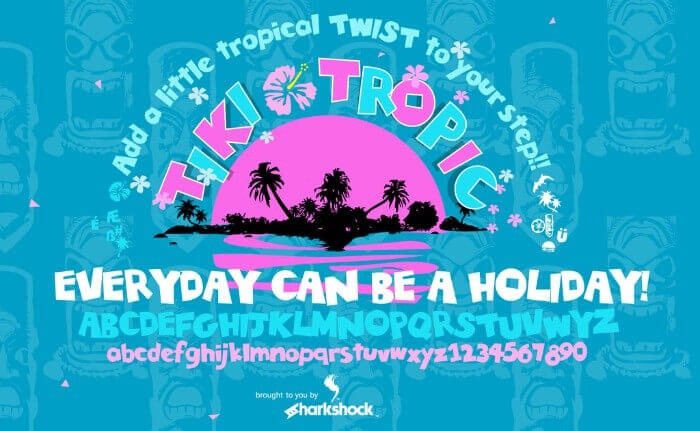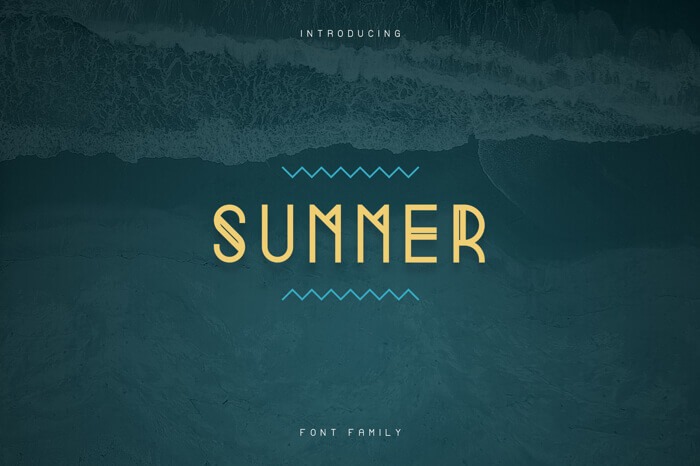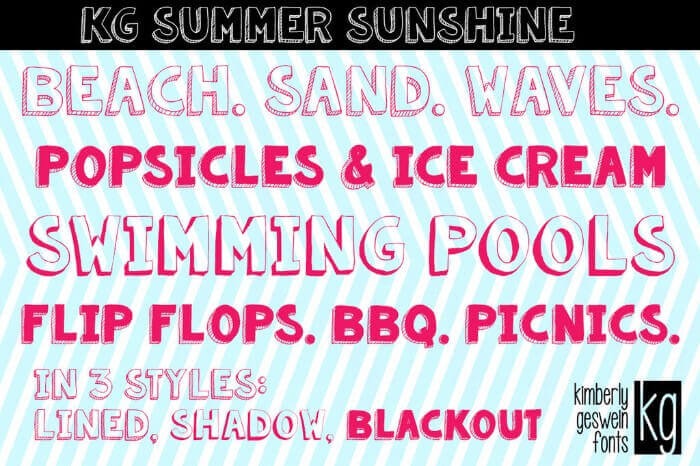
20 Best summer fonts for seasonal designs (free + paid)
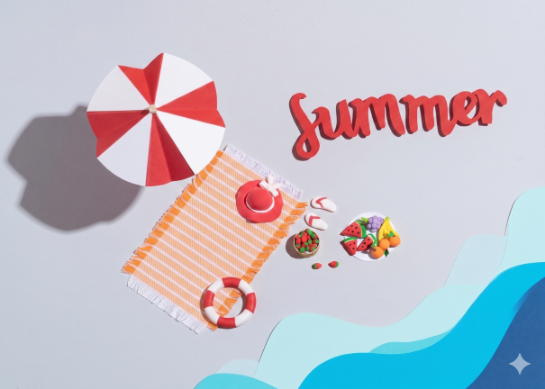
TL;DR
The best summer fonts match your project's tone, not just the season.
✅ Best free commercial picks: Summer Vibes (handwritten, Dafont), Rock Salt (Google Fonts), Camar Vintage (Pixel Buddha).
✅ Best for social and display: Beachday and Reborn (both free).
✅ Best elegant options: Pana Summer and Esencia (both free). Most fonts on this list are free to download, but check commercial license terms before using in paid projects. Personal-use-only fonts are flagged in every entry.
Summer fonts show up everywhere in seasonal design: beach bar signage, sale banners, travel brochures, social media posts from June through August. The right typeface communicates warmth and playfulness before a reader processes a single word. The wrong one just looks like someone dropped a clip art file into Canva.
This list covers 20 free summer fonts across every style category, from loose handwritten scripts to bold display faces. Each entry includes a licensing note and a "Best for" label so you know where it actually works, not just what it looks like on a preview image.
20 best summer fonts for seasonal designs
Handwritten summer fonts
1. Summer Vibes (free)
Best for: Social media posts, seasonal greeting cards, summer sale headers ✅
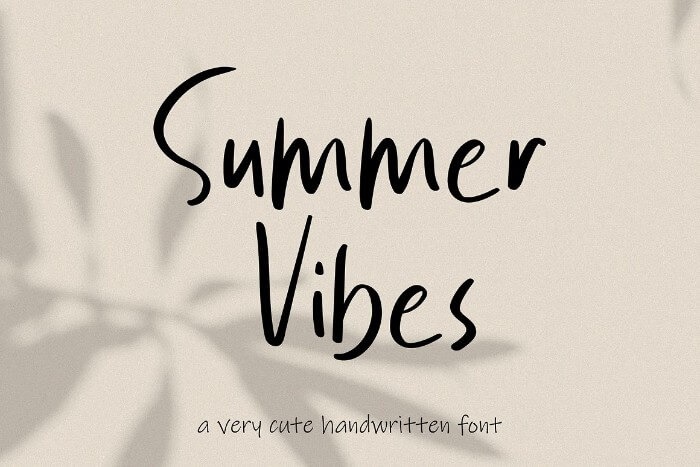
Summer Vibes is one of the few genuinely free-for-commercial-use handwritten summer fonts, which alone makes it worth bookmarking. Its thin lines and gentle strokes give it a flowing, effortless quality without the looseness that makes some script fonts hard to read. Use it as a standalone display font for short callouts, or pair it with a heavier sans-serif for contrast. Available on Dafont.
2. Original Surfer (free)
Best for: YouTube thumbnails, promotional landing pages, seasonal social content ✅
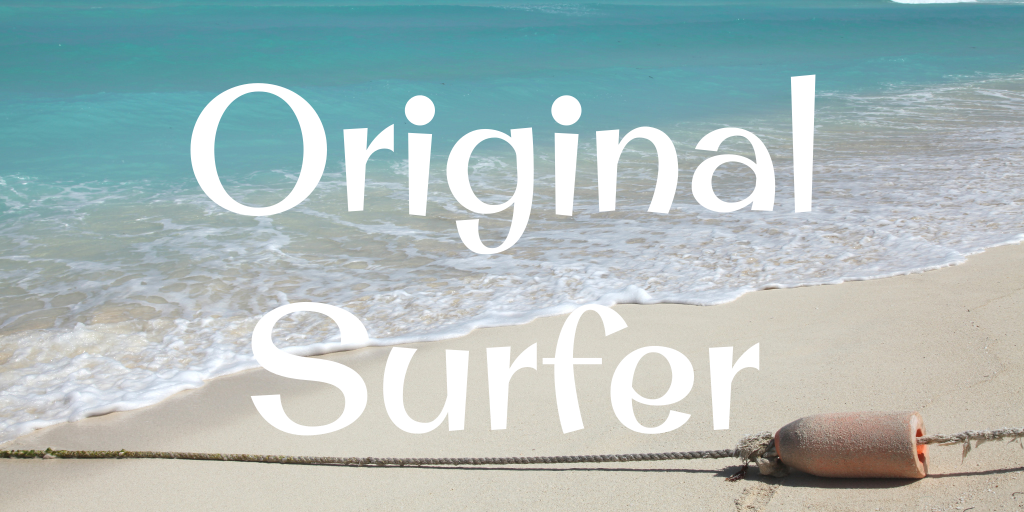
Simple, versatile, and useful across formats. Original Surfer fits with almost any summer design without demanding attention, which makes it the right pick when the font needs to support the layout rather than lead it. Works well for thumbnails and promotional pages where the imagery carries the summer mood. Available on 1001 Fonts.
3. Rock Salt (free)
Best for: Blog headers, beach-themed branding, casual print materials ✅
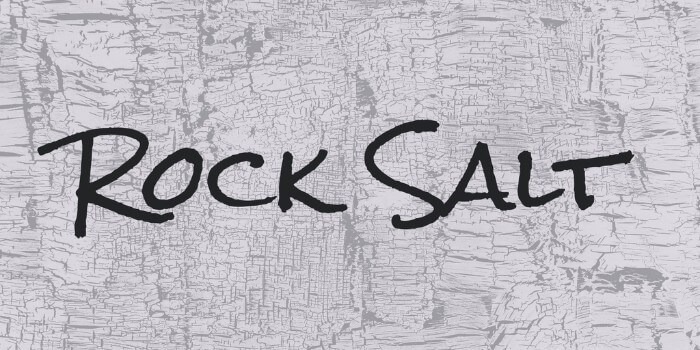
Rock Salt was created with felt-tip markers and has a more grounded, deliberate quality than most brush scripts. It does not flow freely; it looks like something written on paper. That analog quality makes it feel authentic rather than digitally manufactured, which is exactly what you want from a handwritten summer font. Available on Google Fonts, free for commercial use under the Open Font License.
4. Tomatoes (free for personal use)
Best for: Large-format decorative accents, personal projects, secondary text elements ✅
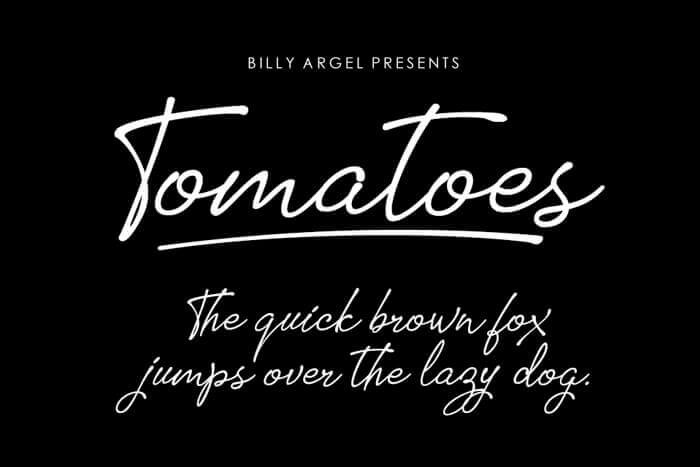
Tomatoes is thin-lined and cursive, with a beautiful lightness to it. Be real: it is not the right choice as a display font where readability at small sizes matters, and the original description is honest about this. As a large-format accent element in a layout where the text is decorative rather than informational, it is striking. Free for personal use on Fontspace; contact the author for a commercial license.
Decorative summer fonts
5. Palm Beach (free)
Best for: Apparel design, event posters, summer merchandise ✅
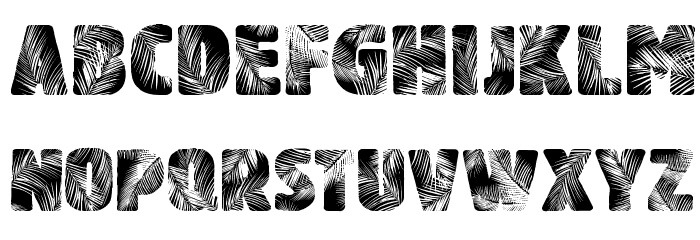
Palm Beach is a bold, wide-lettered decorative font with palm leaf patterns built directly into every character. It is very specific, which is both its strength and its limitation: it works perfectly as the centerpiece of a simple layout, but becomes overwhelming if the surrounding design is already busy or colorful. Use it on a monochrome t-shirt or a festival poster where it can breathe. Available on Dafont.
6. Hawaiian Punk (free)
Best for: Travel blog featured images, Hawaii or tropical-themed content ✅
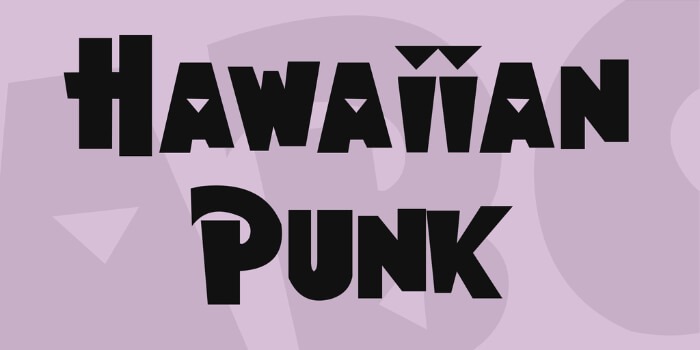
This Hawaii-inspired serif has a cartoonish quality that suits travel content well. Hawaiian Punk earns its place on a featured image because it immediately signals tropical without requiring supporting imagery. It is a strong standalone headline font when you want the type to carry the theme before the photo does. Available on Dafont.
7. Tiki Tropic (free)
Best for: Summer branding with multilingual needs, tropical lifestyle brands ✅